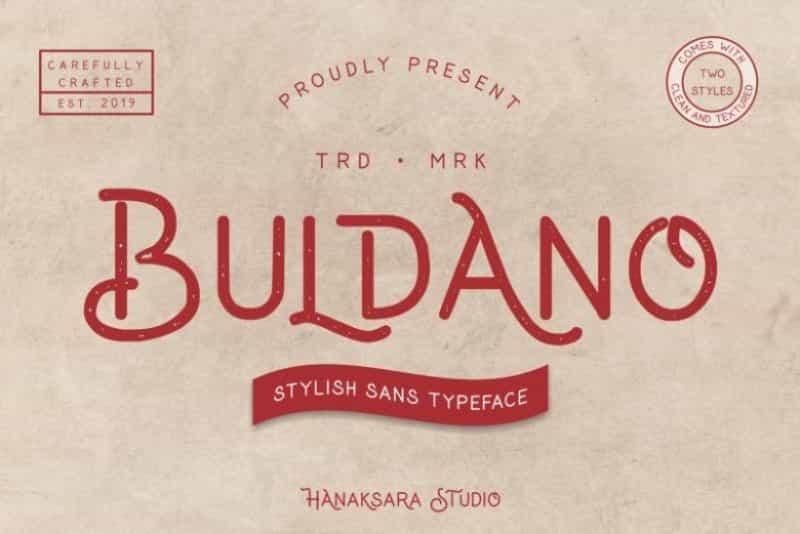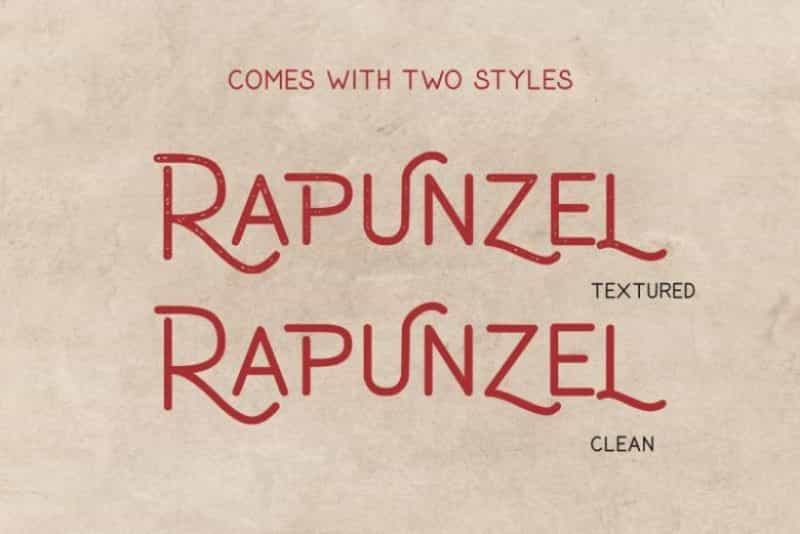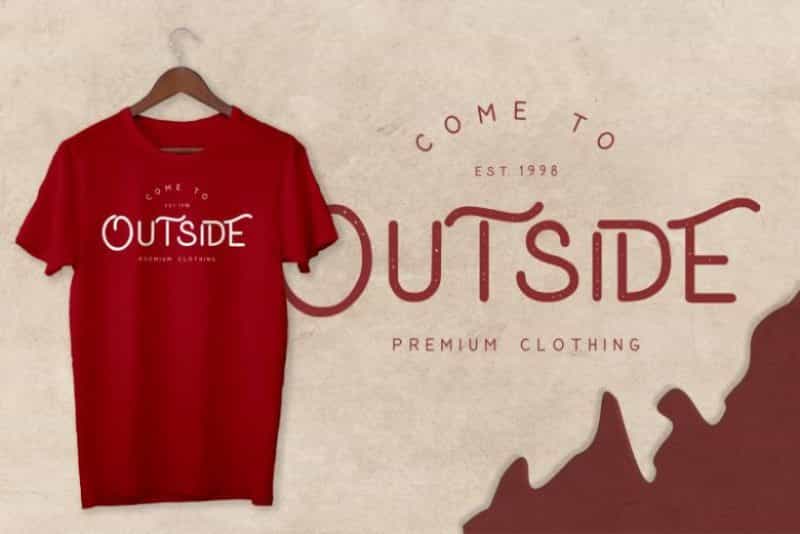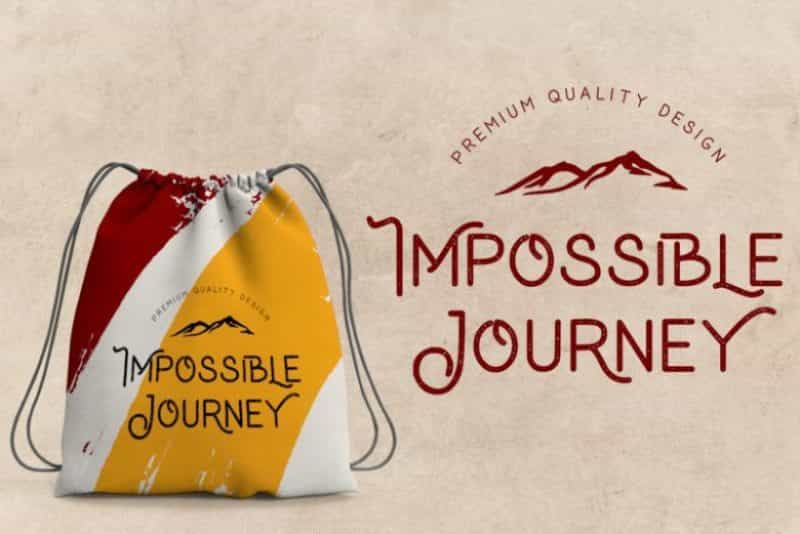
Buldano Stylish Sans Font
Buldano is a modern font that belongs to a sans serif category. It will take many a design project to a new level, from branding to headings, wedding designs, invitations, signatures, logos, labels, among others.